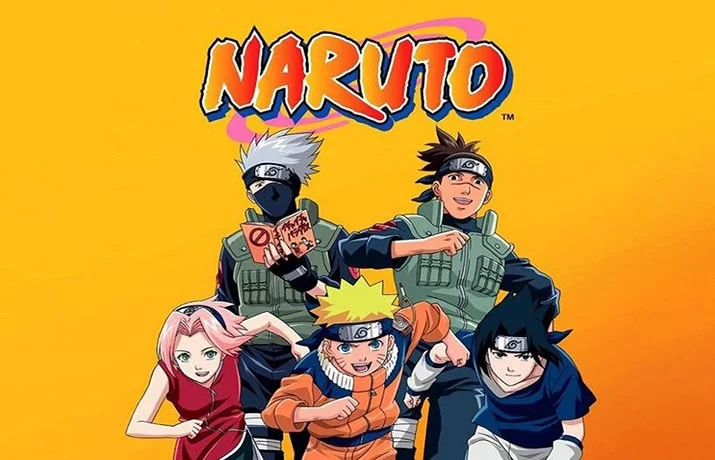
Naruto font is a display stylish font in the present time. This typeface is completely based on the Japanese comic series Naruto Manga. It becomes one of the most popular manga series of all time.
It was first shared after 1997 and serialized in the booking form in 1999. So, now a total of 72 volumes of this series have been released not only in Japan but also in America.
Naruto is one of the best-selling manga series in history with over 250 million copies in circulation in 47 countries and territories worldwide, with 153 million copies in Japan alone and the remaining 97 million copies elsewhere.
| Font Name: | Ninja Naruto Font Family |
| Style: | Brush, Script, Display |
| Font Designer: | Risen Realm, Keiichi Anime |
Here we want to give a font family that is very similar to this series. Its name is Ninja Naruto Font created by the Risen Realm and Keiichi Anime.